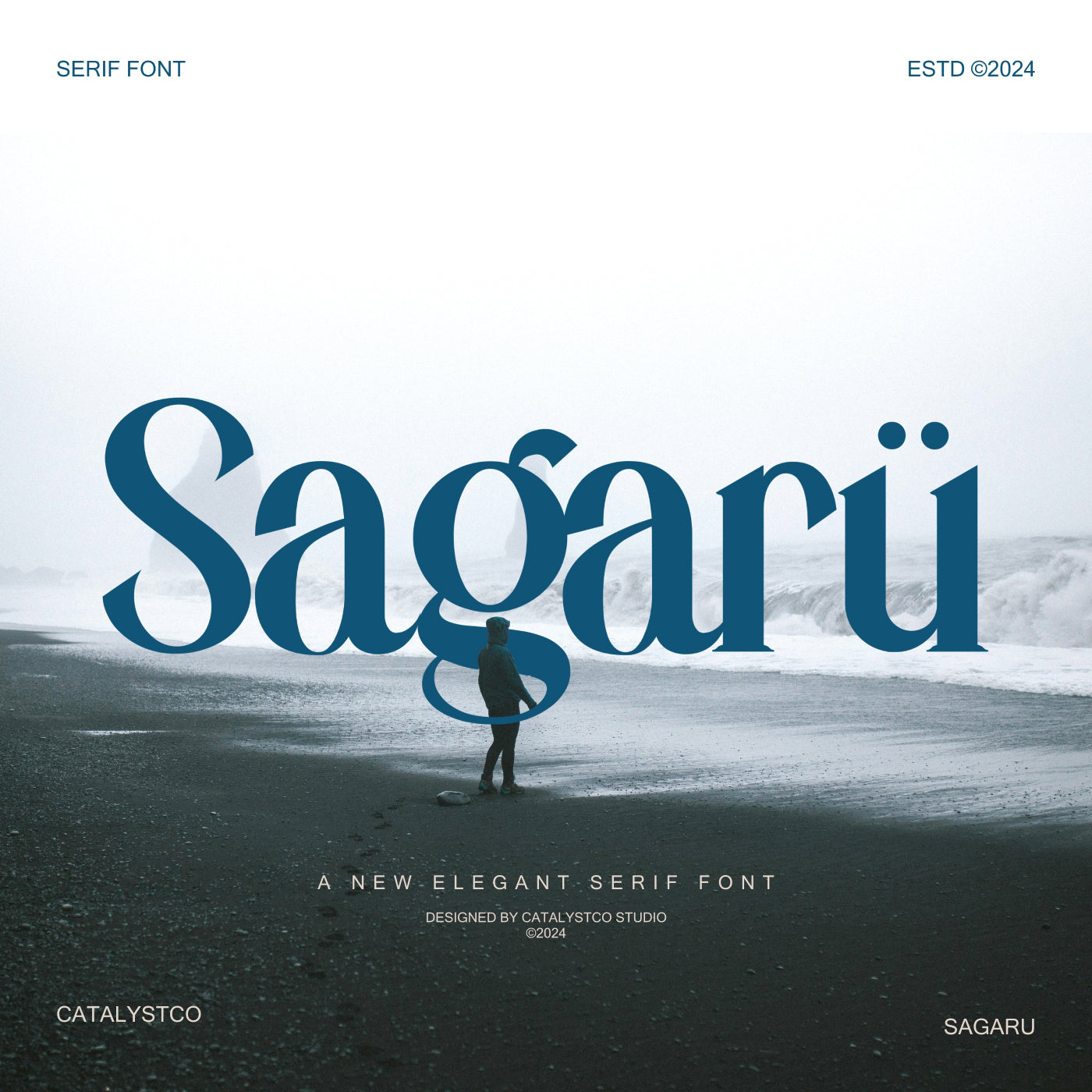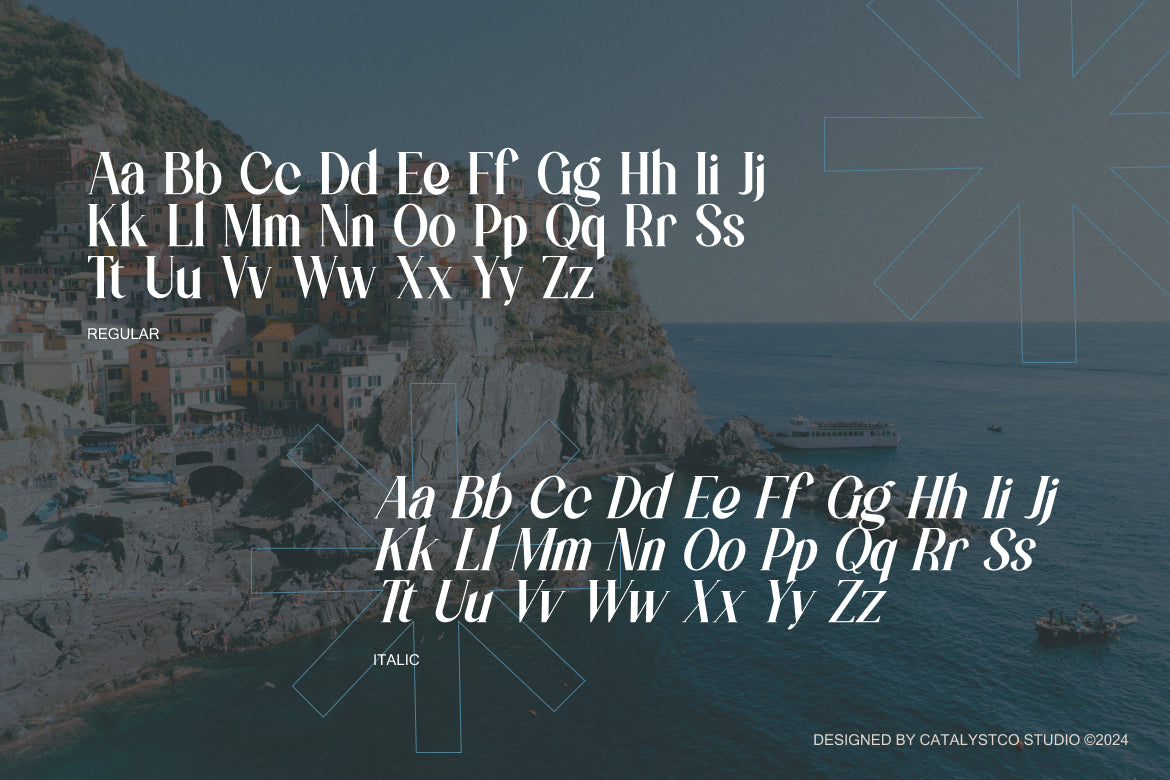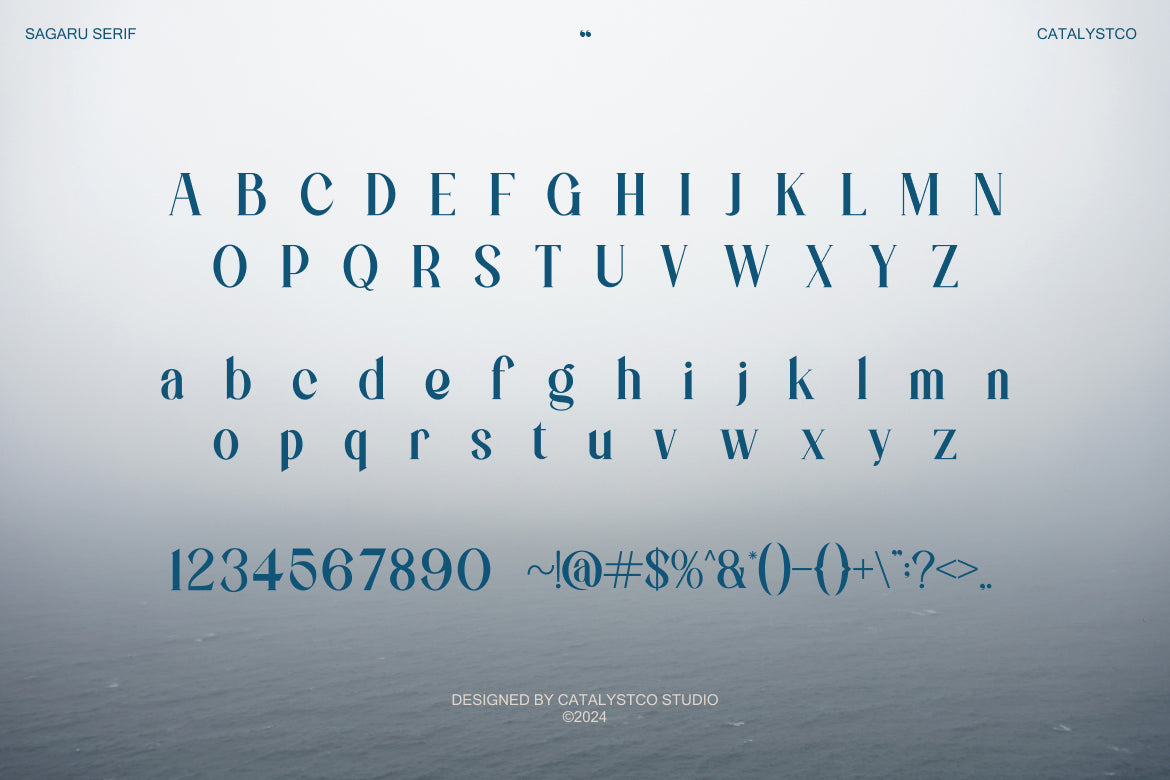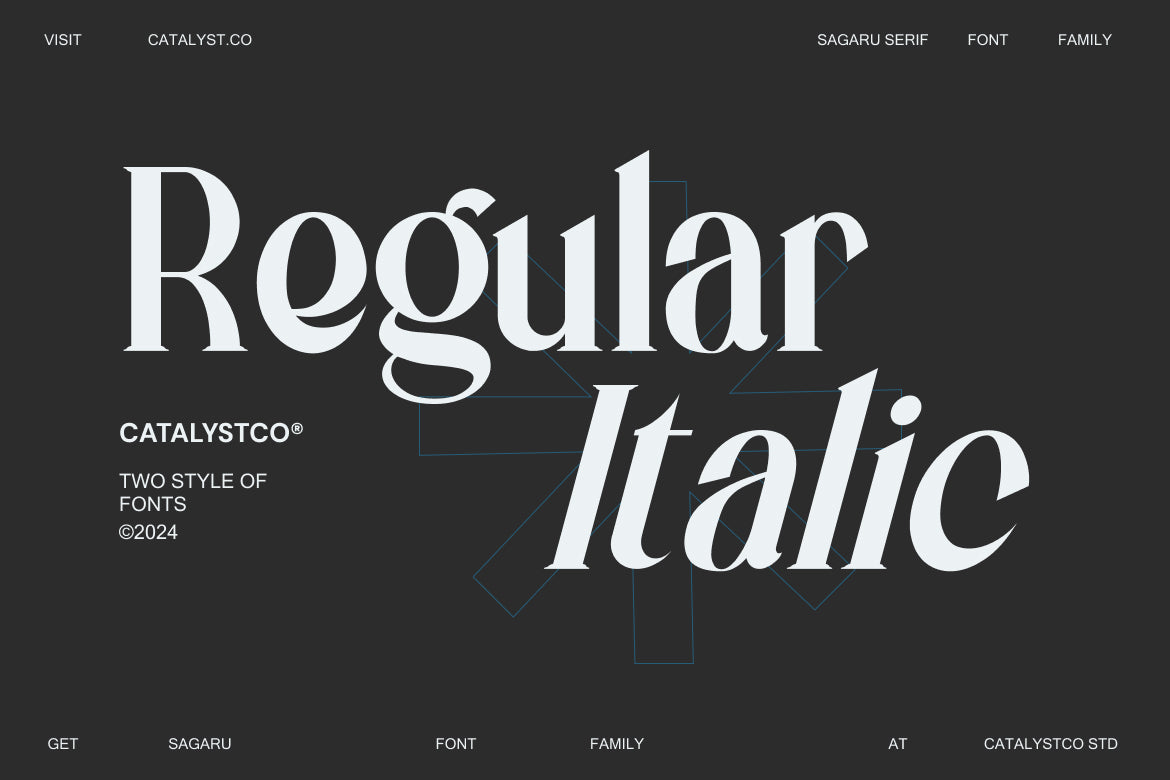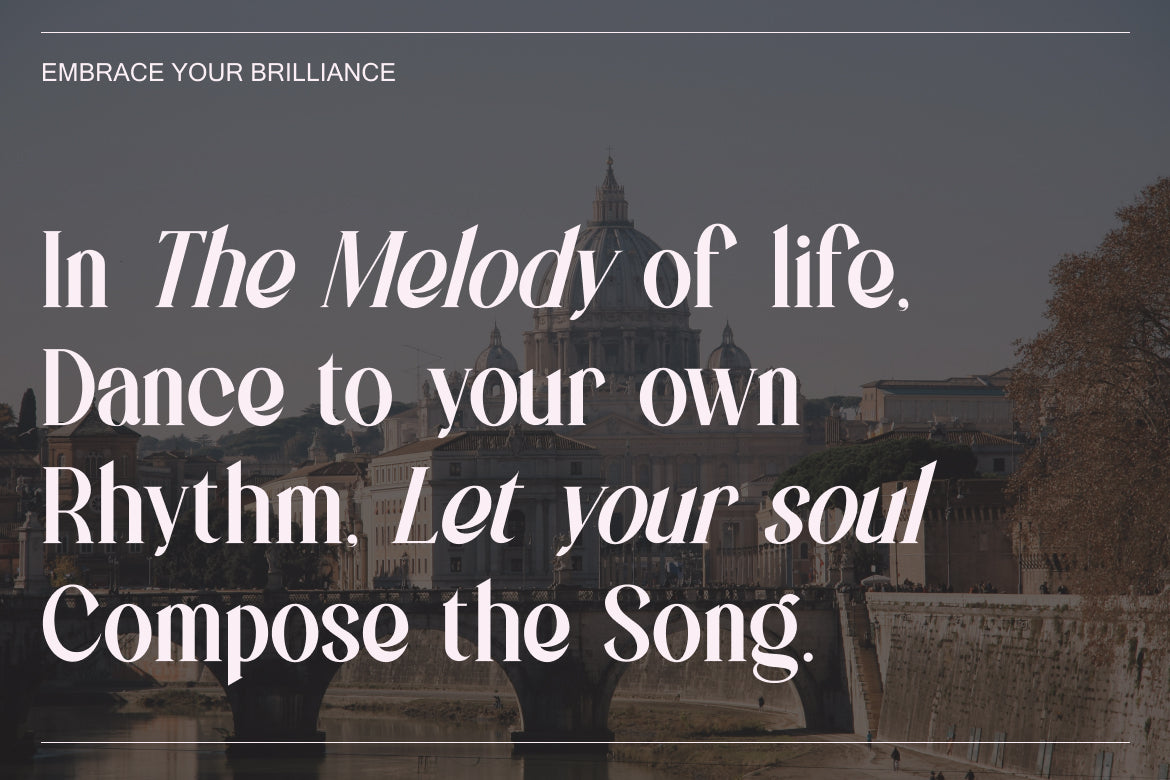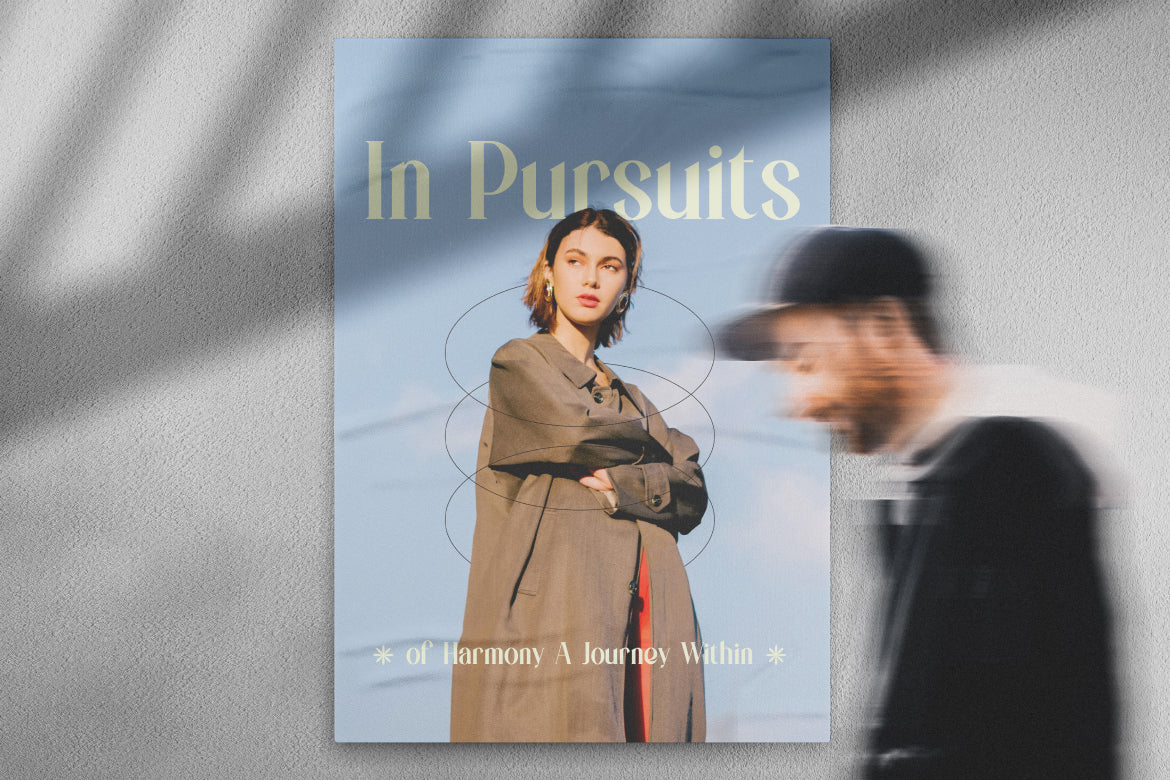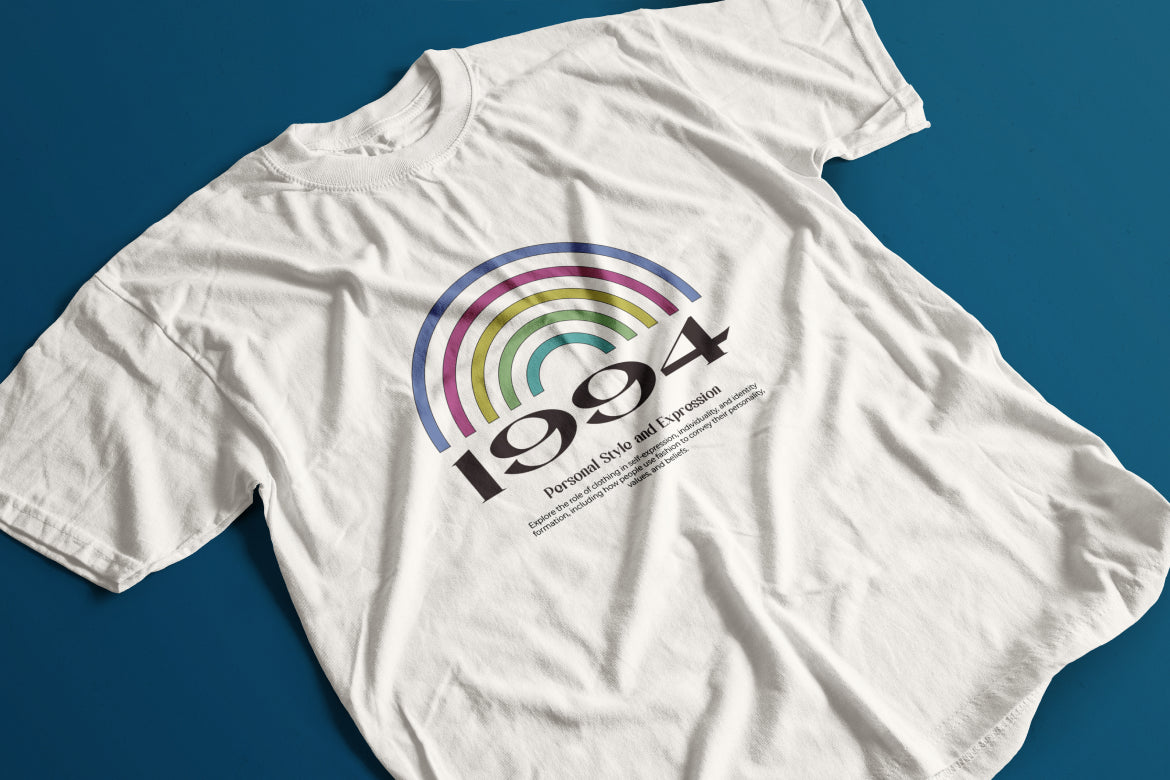
Sagaru Elegant Serif Font
Sagarü is a modern elegant serif font featuring refined curves, slim proportions, and expressive contrast that creates a calm yet sophisticated visual presence. The smooth stroke transitions and distinctive terminals give each letter a graceful identity suitable for contemporary editorial design and premium branding. With its balanced rhythm and stylish character details, Sagarü delivers a polished typographic experience across headline and display use. A perfect choice for designers seeking an elevated serif with a serene, atmospheric feel.
Relevance and Use Cases is perfect for editorial covers, luxury brand identity, product packaging, fashion promotions, magazine titles, minimal posters, digital visuals, and creative layouts requiring a calm, polished, and beautifully crafted serif style.
Regular & Italic Font Version
Sagaru Elegant Serif Font is a serif typeface with refined curves, slim proportions, and stroke contrast, available in Regular and Italic versions. It includes uppercase and lowercase letters, numerals, punctuation, ligatures, and alternates, provided in TTF, OTF, and WOFF formats.